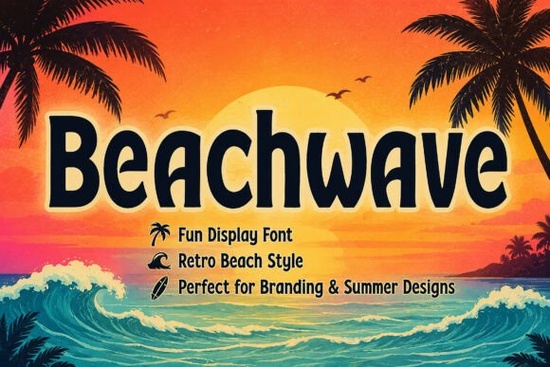
If you're looking for a display font that instantly brings to mind saltwater, sun-bleached wood, and carefree summer days, Beachwave Font fits the bill no design overhauls or complex layering needed. It’s not just another script or sans-serif; it’s a retro-inspired, hand-drawn-feeling typeface with bold curves and relaxed energy, built for visibility and mood not fine print.
What kind of projects does Beachwave actually work well for?
It shines where personality matters more than precision: beach shop logos, vacation rental social posts, kids’ activity sheets, tropical-themed stickers, or even playful product labels for lemonade mixes or sunscreen. Because it includes both uppercase and lowercase letters (plus numbers and punctuation), you can use it beyond just headlines think short slogans on tote bags, event dates on flyers, or fun captions in Instagram carousels.
Unlike fonts that lean too far into “vintage” (think cracked ink or heavy serifs) or too far into “cute” (think bubbly or overly rounded), Beachwave lands somewhere warm and approachable like a well-worn surfboard logo from the 1970s, but clean enough for modern screens and print.
If you’ve ever struggled with fonts that look great in previews but break when exported or shared, Beachwave avoids those hiccups. That reliability matters whether you’re prepping files for a local printer or uploading designs to Redbubble or Printful.
Where does it sit alongside other popular display fonts?
It’s got a different vibe than Spooky Moon Font, which leans into moody, illustrated Halloween charm or Robot Parts Font, all sharp angles and sci-fi energy. Beachwave sits comfortably next to relaxed, summery fonts like Vintage Bold Font, though it’s less structured and more fluid. And while Cute Crayon Font feels like a child’s drawing, Beachwave feels like the sign outside the ice cream shack down the boardwalk friendly, intentional, and full of character.
Who’s using Beachwave right now and what are they making?
- Small-batch makers printing limited-run beach towels and reusable straw sleeves the font scales well from tiny embroidery text to large fabric prints.
- Local tourism boards designing seasonal posters for coastal towns, where readability at a distance matters as much as tone.
- Etsy sellers creating digital sticker packs for planners and journals, pairing Beachwave with simple line art of palm trees or flip-flops.
- Teachers and homeschoolers building summer learning kits its friendly shape helps younger readers engage without feeling babyish.
You don’t need advanced typography knowledge to use it well. A good rule of thumb: pair Beachwave with a clean, neutral sans-serif (like Open Sans or Montserrat) for body text. That contrast keeps things legible and balanced especially important if you’re designing for both web and physical products.
Does it work for branding long-term?
Yes if your brand voice is warm, casual, and seasonally flexible. It’s not meant for law firms or financial dashboards, but it is ideal for businesses tied to leisure, wellness, travel, or family-friendly experiences. One small business owner told us she used Beachwave across her entire rebrand from her café’s chalkboard menu (“Cold Brew & Coconut Water”) to packaging for house-made sea salt caramels and customers consistently said it “felt like summer, even in January.”
That emotional resonance is hard to fake. Beachwave doesn’t shout it invites. And because it’s designed as a display font (not for paragraphs), it stays fresh and focused where it’s meant to be seen.